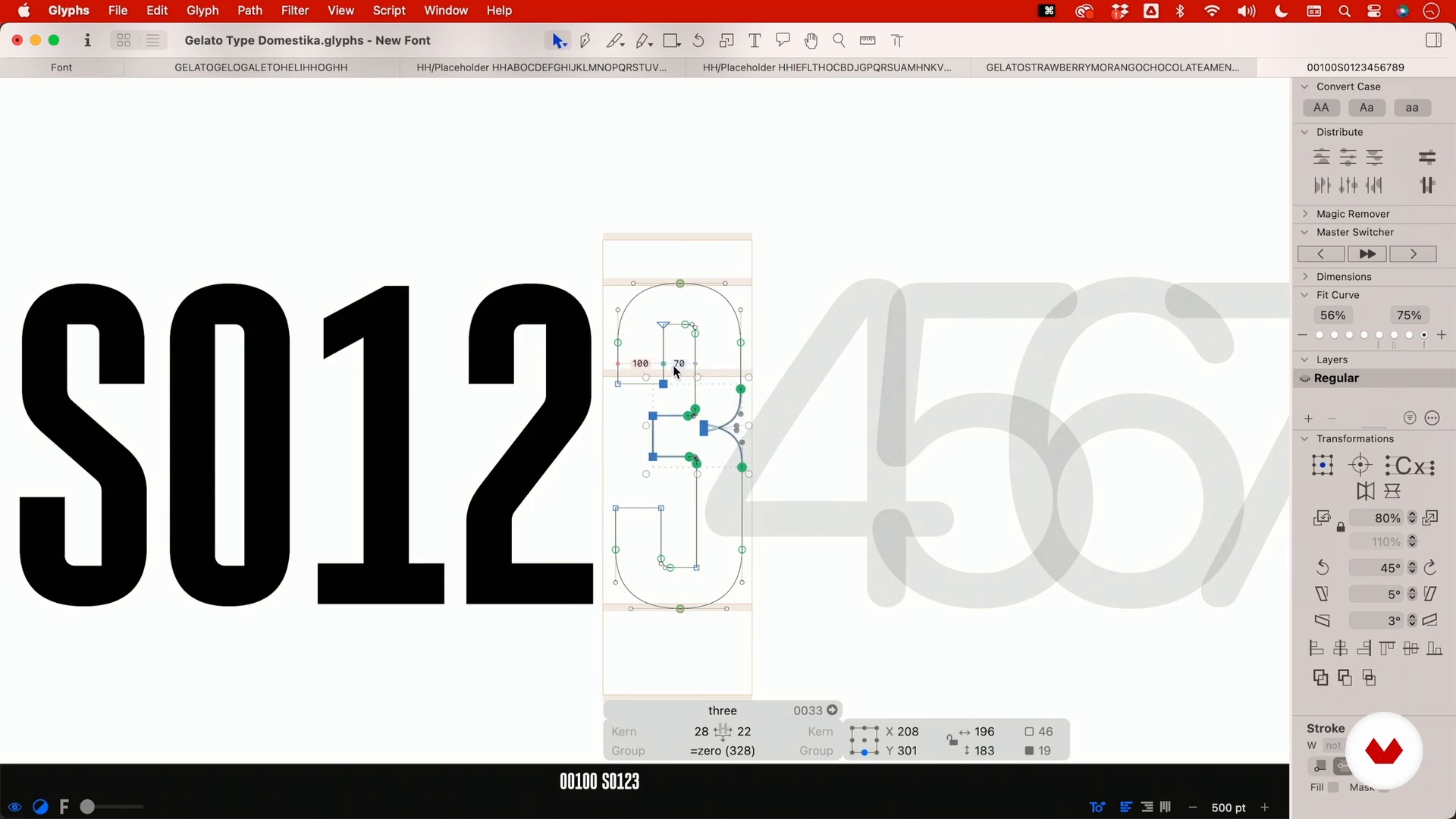
Vectorization: numbers and orthographic signs 1
About the video: Vectorization: numbers and orthographic signs 1
“In a font, the numerals, punctuation and accentuation are as important as the letters AZ. For a font to work well, all characters have to be thought out with the same care. ”
In this video lesson Plau addresses the topic: Vectorization: numbers and orthographic signs 1, which is part of the Domestika online course: Advanced Brand Typography. Discover how to design your own typography and create a unique brand with our step-by-step course. .
“Designing a font involves more than just crafting letters from A to Z. In this session. we'll focus on vectorizing numbers. punctuation. and accents. ensuring the font is fully prepared for the brand to express Let's proceed to the numerals in our font. Select the numbers here. and we'll begin the next steps. Command down. Open them here. I'll do this. i'll start with the letter O. To make the zero. Copied and pasted. Generally. Whoa. it's slightly wider than zero. I'll trim it a bit. but not excessively. as this letter is already condensed. I'll remove three units from each side to adjust ...”